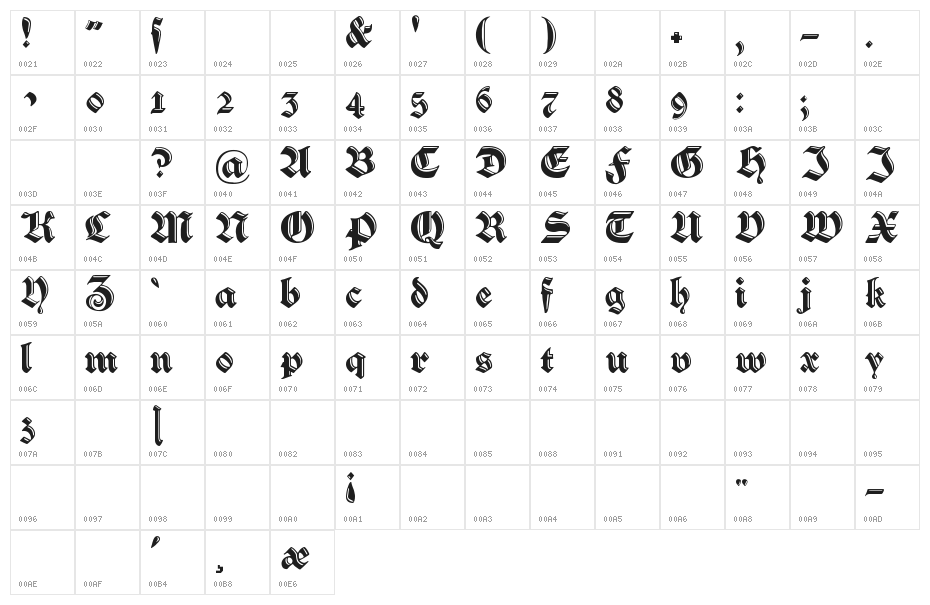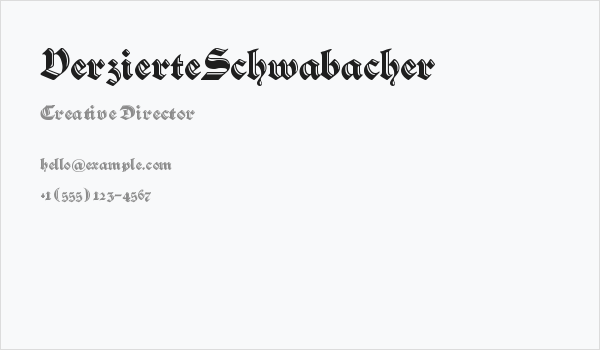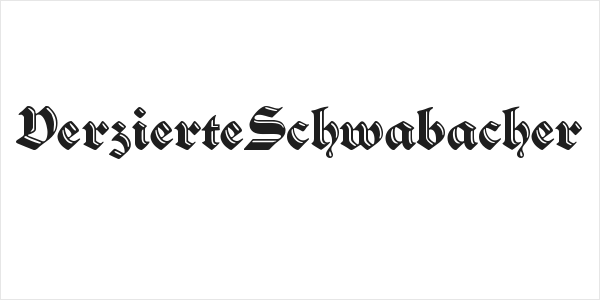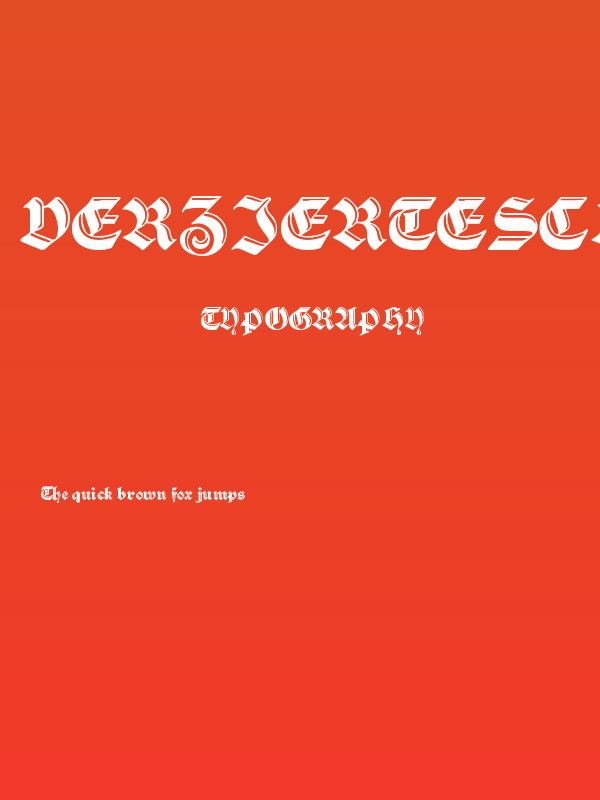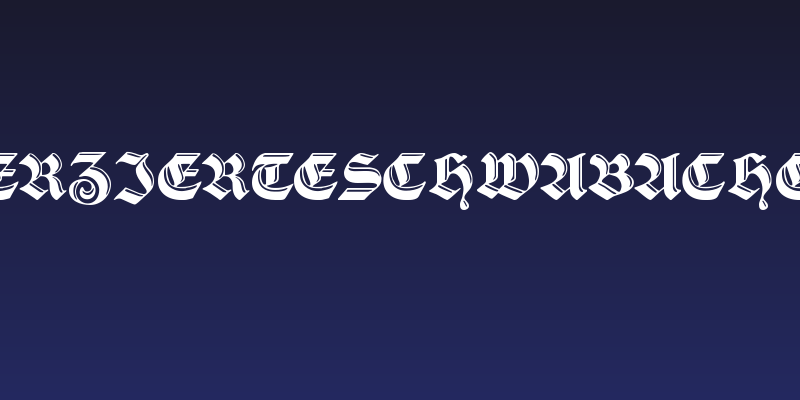
VerzierteSchwabacher Font
VerzierteSchwabacher Description
This font exhibits a traditional blackletter style, characterized by its ornate and intricate design. The letters are bold and angular, with sharp edges and elaborate flourishes that give it a historic and gothic appearance. The uppercase letters are particularly decorative, featuring additional embellishments that enhance their visual impact. The lowercase letters maintain the same level of detail, ensuring consistency throughout the typeface. Numbers and special characters are designed to match the overall aesthetic, making this font suitable for projects that require a medieval or vintage feel.
| Proposed Projects | Ideal for historical documents, vintage-themed designs, book covers, and decorative posters. |